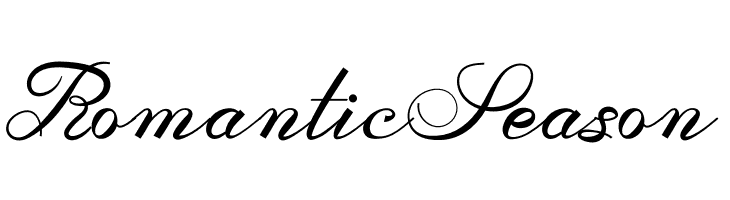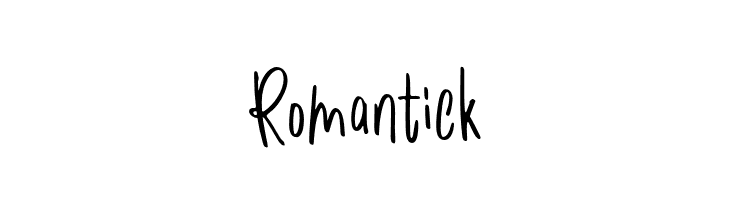
A delicate and elegant cursive script font with flowing, connected letters.
A graceful, handwritten script font with a romantic and elegant style.
A romantic script font with elegant, flowing cursive strokes.
A bold, playful script font with a handcrafted, brush-like appearance.
An elegant and sophisticated cursive script font with flowing curves.
A whimsical script font with elegant flourishes and a romantic fantasy style.
A flowing, cursive font with elegant, sweeping strokes and a romantic appearance.
A bold, playful handwritten font with smooth curves and a friendly appearance.
A delicate, whimsical font with thin lines and elegant curves, perfect for artistic projects.
A romantic and elegant script font with flowing, cursive letterforms.